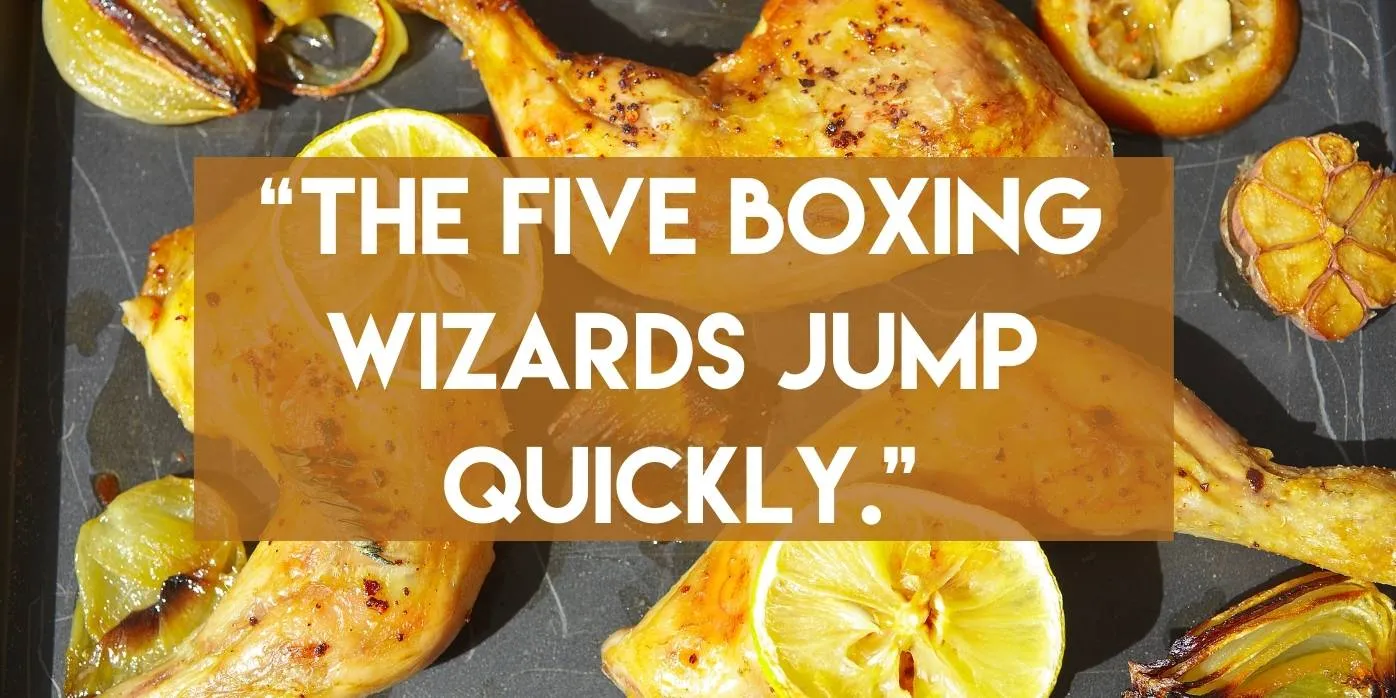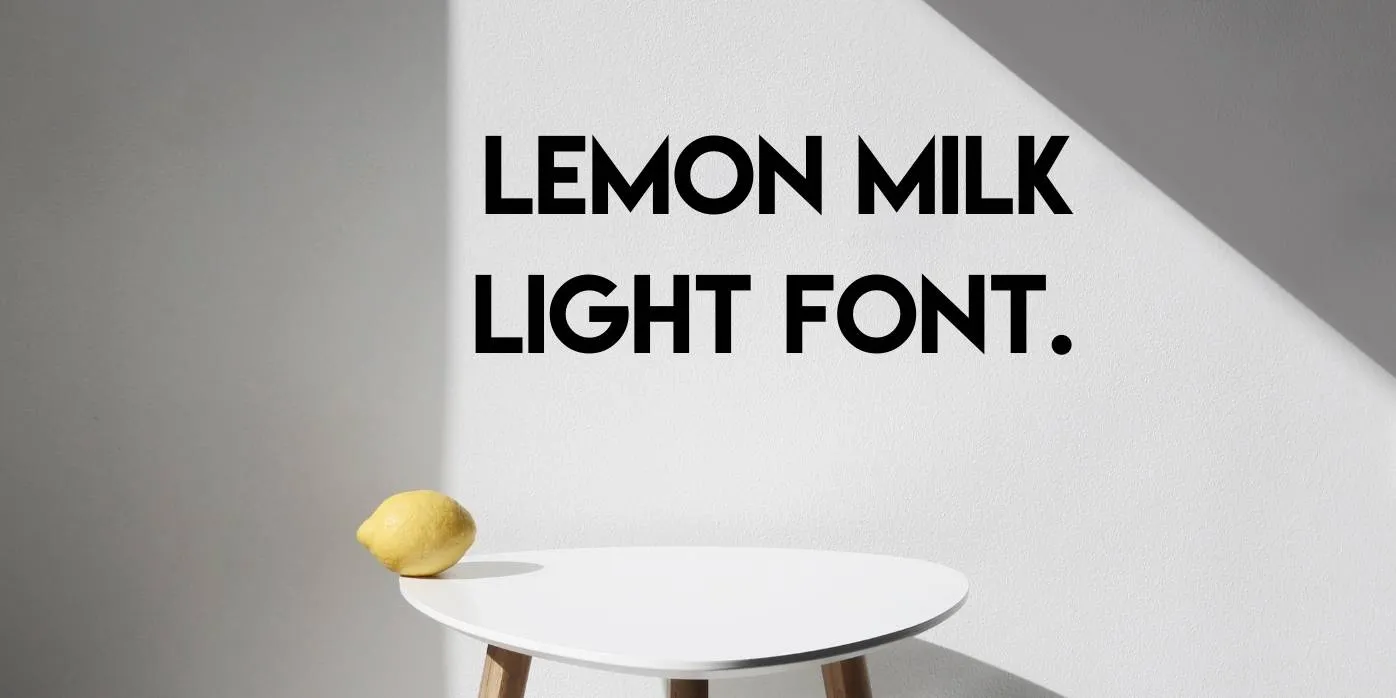
Lemon Milk Light Font
Lemon Milk Light Font was designed by famous font creator Muhammed Arik Syauqi. This classy font is a graduate of Taliesin lemon milk light font School. This awesome font was inspired by the orange juice light from the 1950s. This awesome font comes in 277 Glyphs and more than 286 unique Glyphs.
This font family is very famous among many designers. This awesome font is a good choice for many lemonade stand famous companies. It belongs to the Sans-Serif font family. You can use this font with its similar Gill Sans  Font.